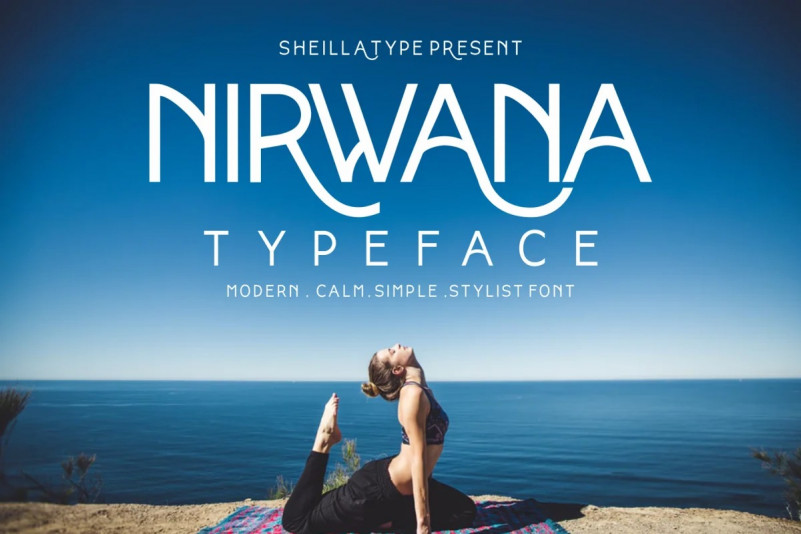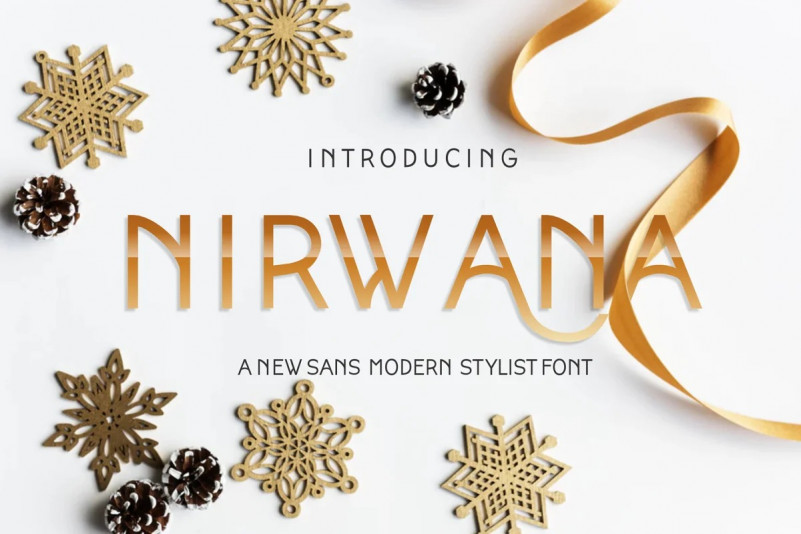
Nirwana Font
Nirwana Sans Serif Font, this is a sans family font combined with simple decorative variations in font anatomy, this font is intended for the purposes of logotype type of soft design, beauty, fashion, and online shop, as well as for text needs that require simple sans font but curly without much ornament.